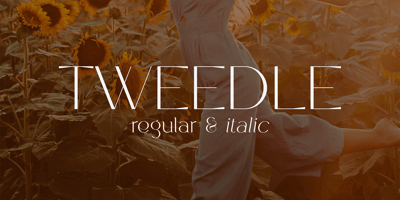
Tweedle
Tweedle font
Tweedle Font Family was designed by Vladimir Fedotov, Plamen Petrov and published by VP Creative Shop. Tweedle contains 3 styles and family package options. Introducing Tweedle – Display TypefaceTweedle is creative and elegant typeface loaded with 3 fonts and multilingual support. It’s a very versatile font that works great in large and small sizes.This font is perfect for branding projects, home-ware designs, product packaging, magazine headers – or simply as a stylish text overlay to any background image.FEATURES Uppercase, lowercase, numeral, punctuation & Symbol Regular, alternate and italic versions Multilingual support No special software is required to type out the standard characters of the Typeface. Canva friendly Feel free to contact me if you have any questions!Mock ups and backgrounds used are not included.Thank you! Enjoy!